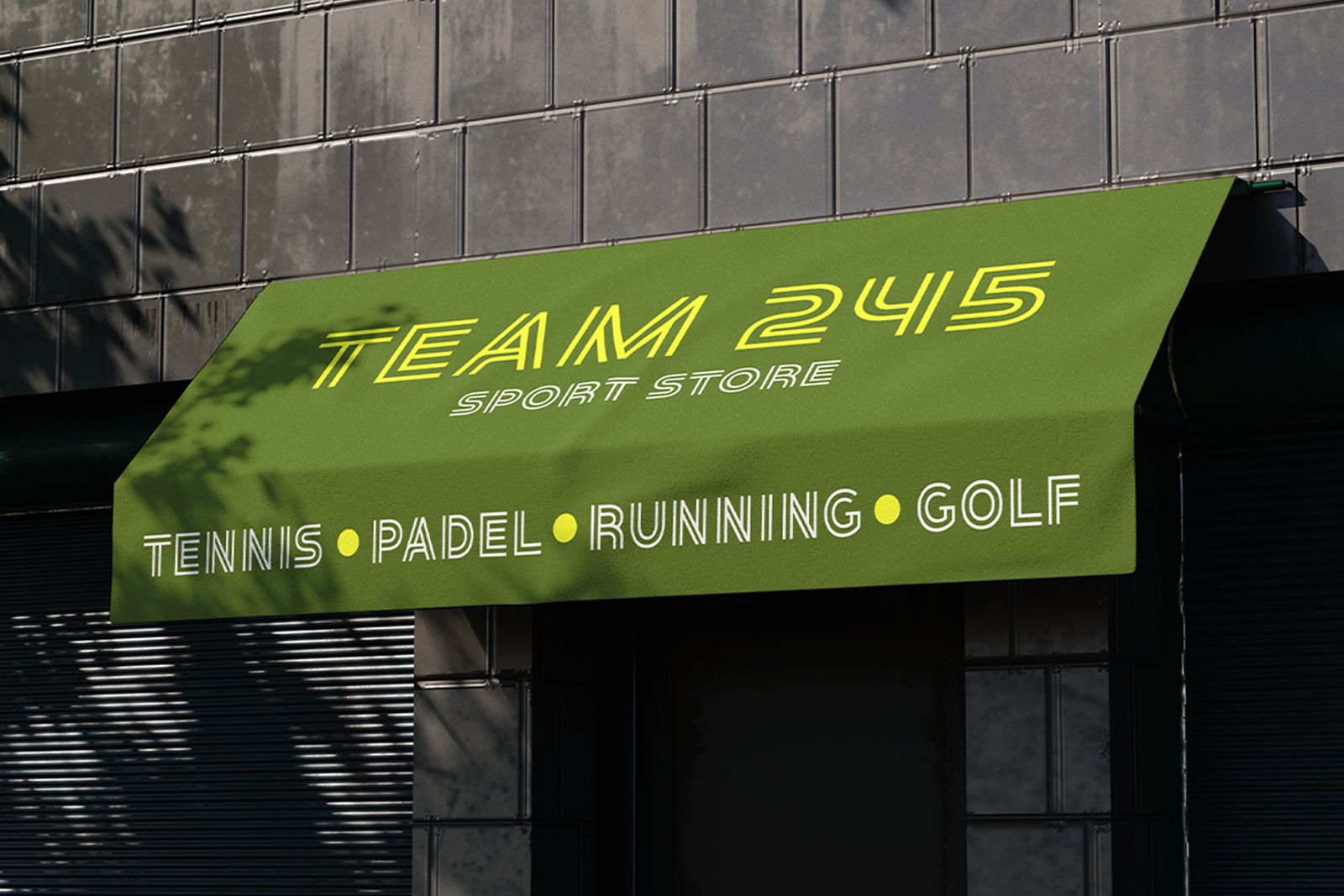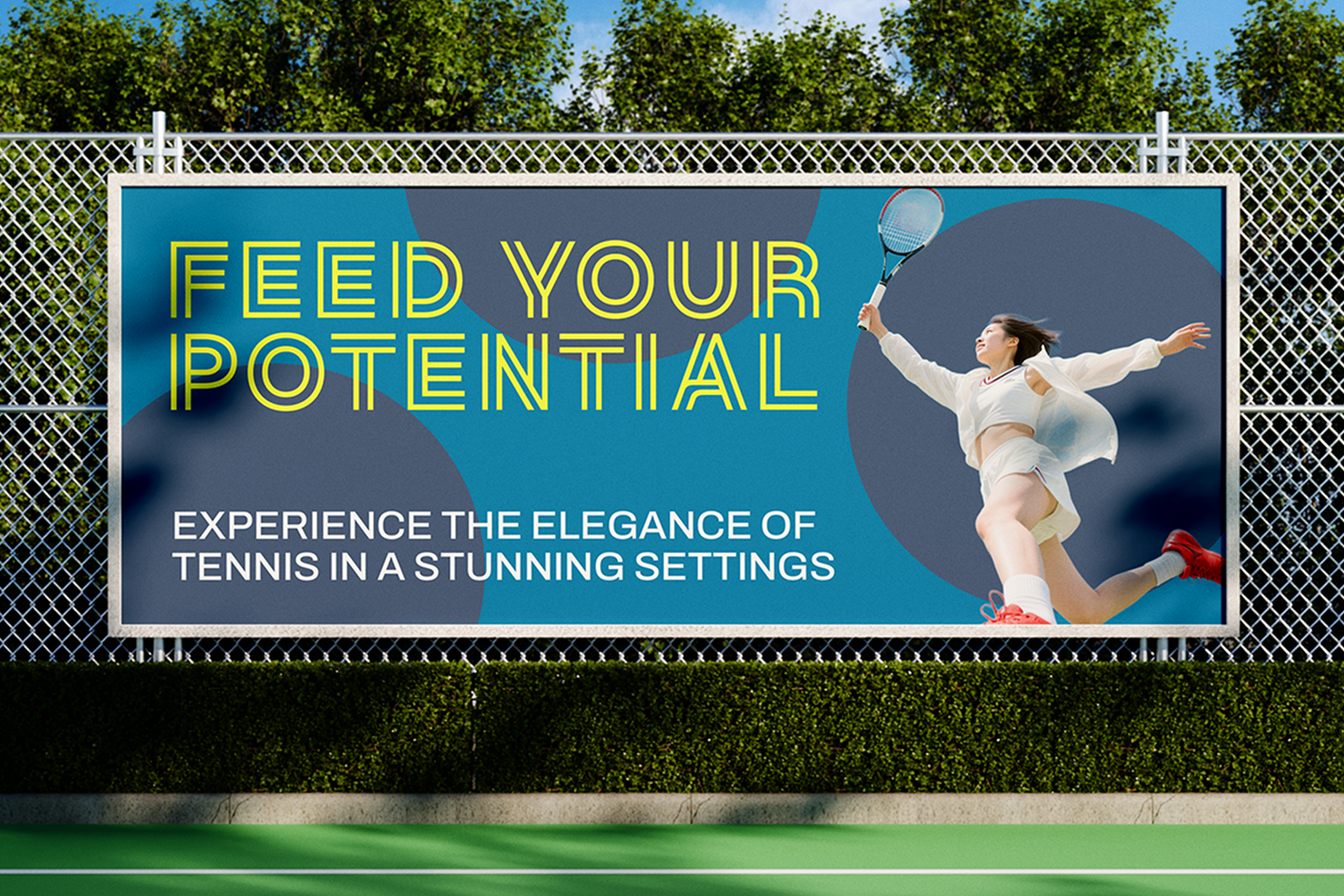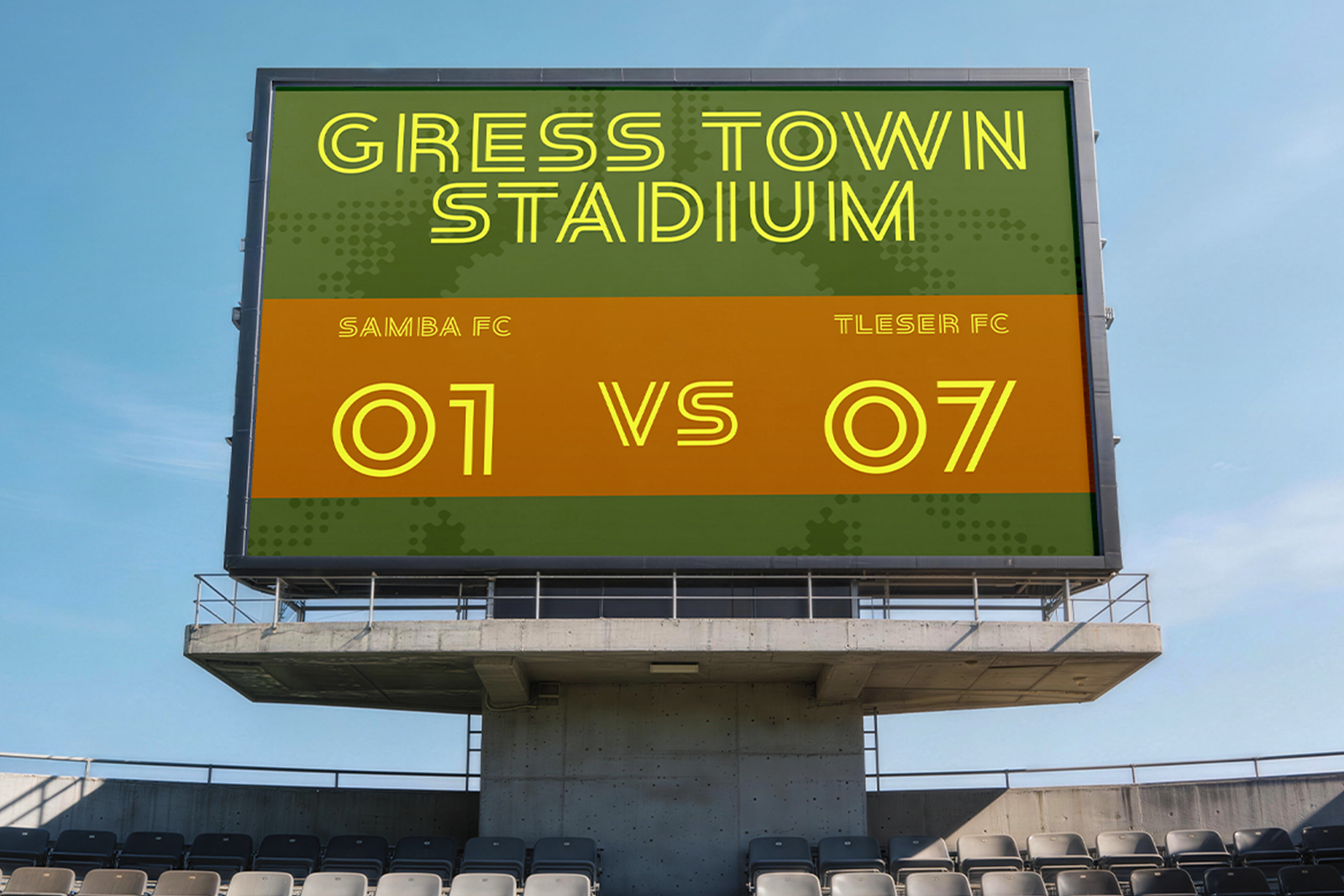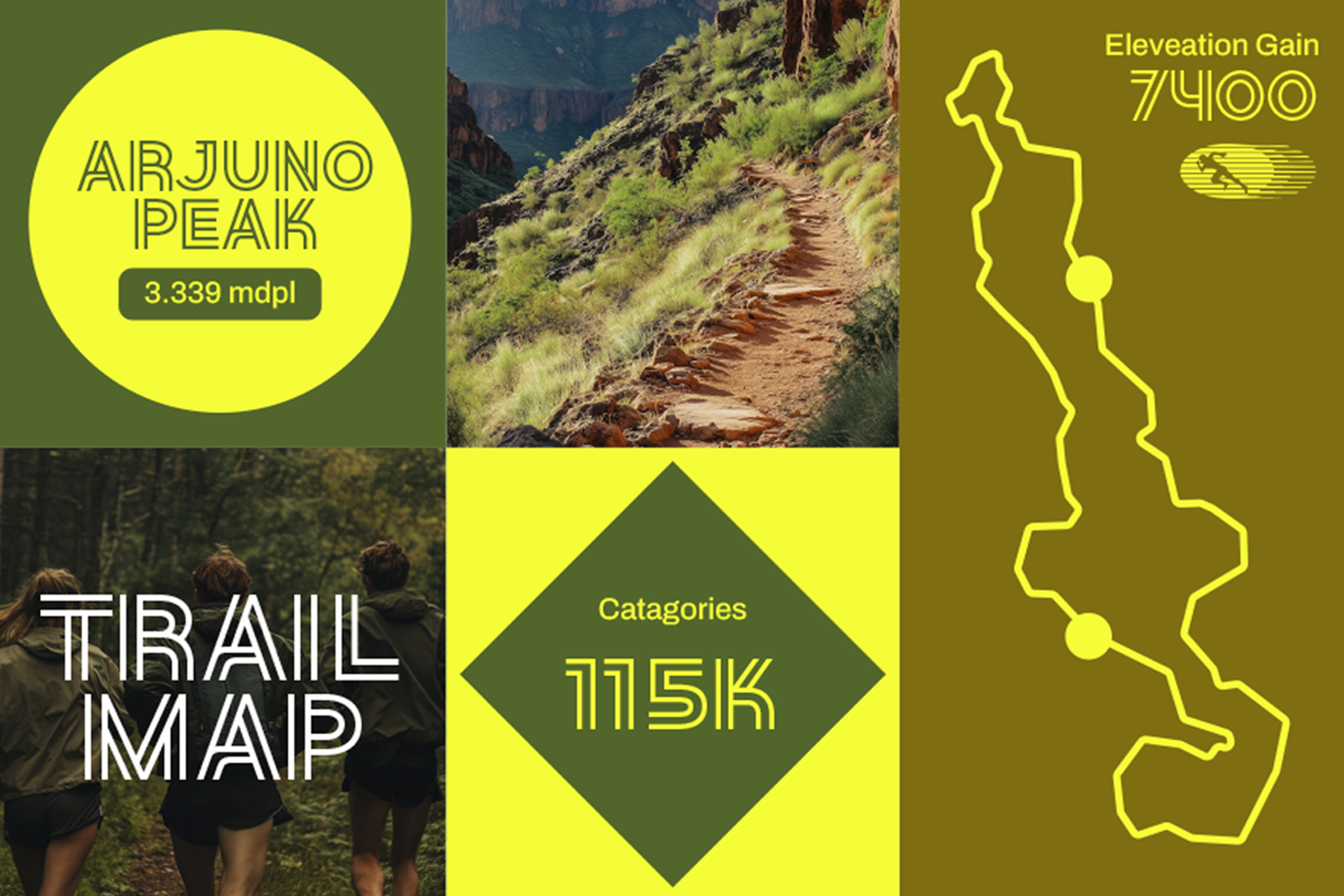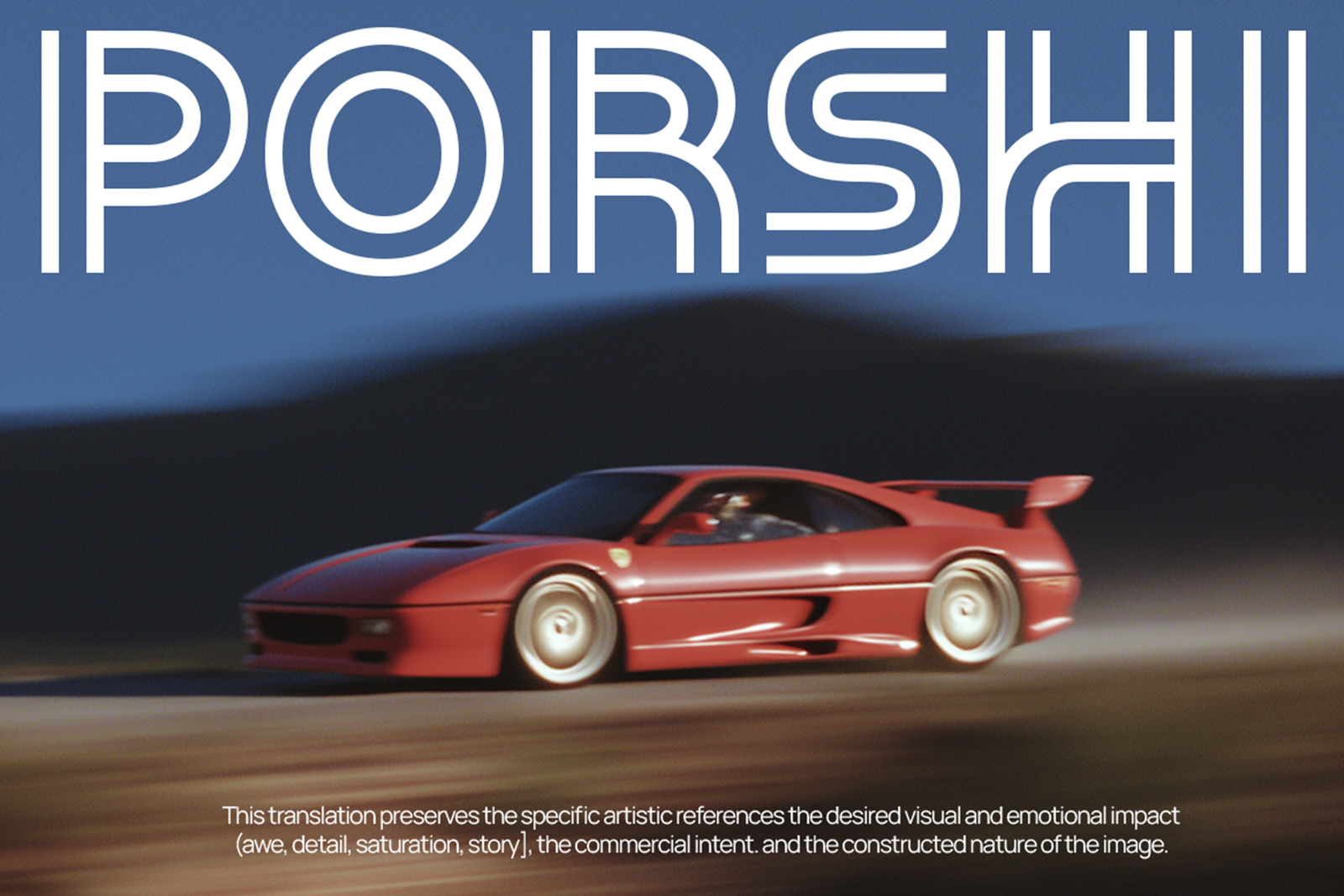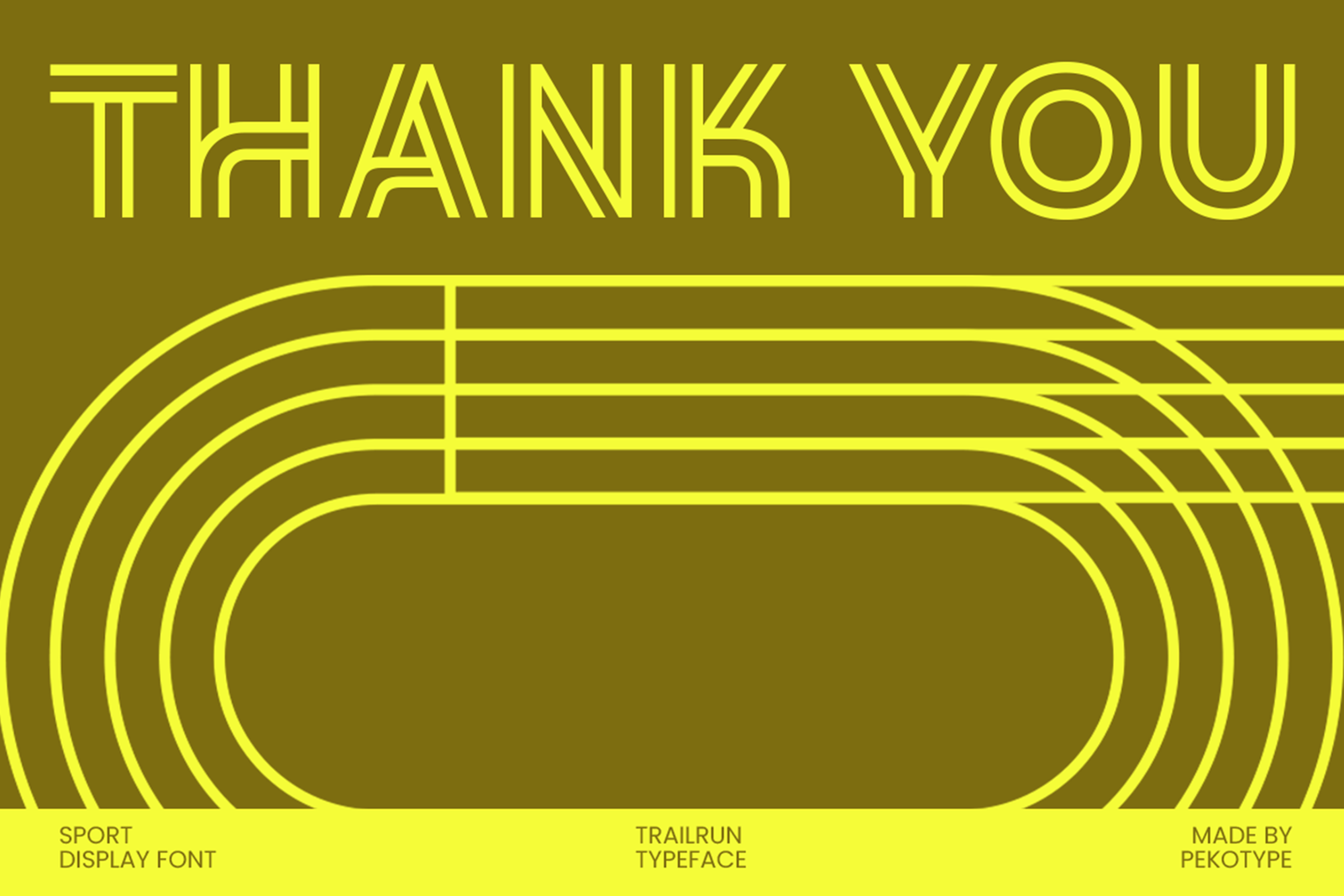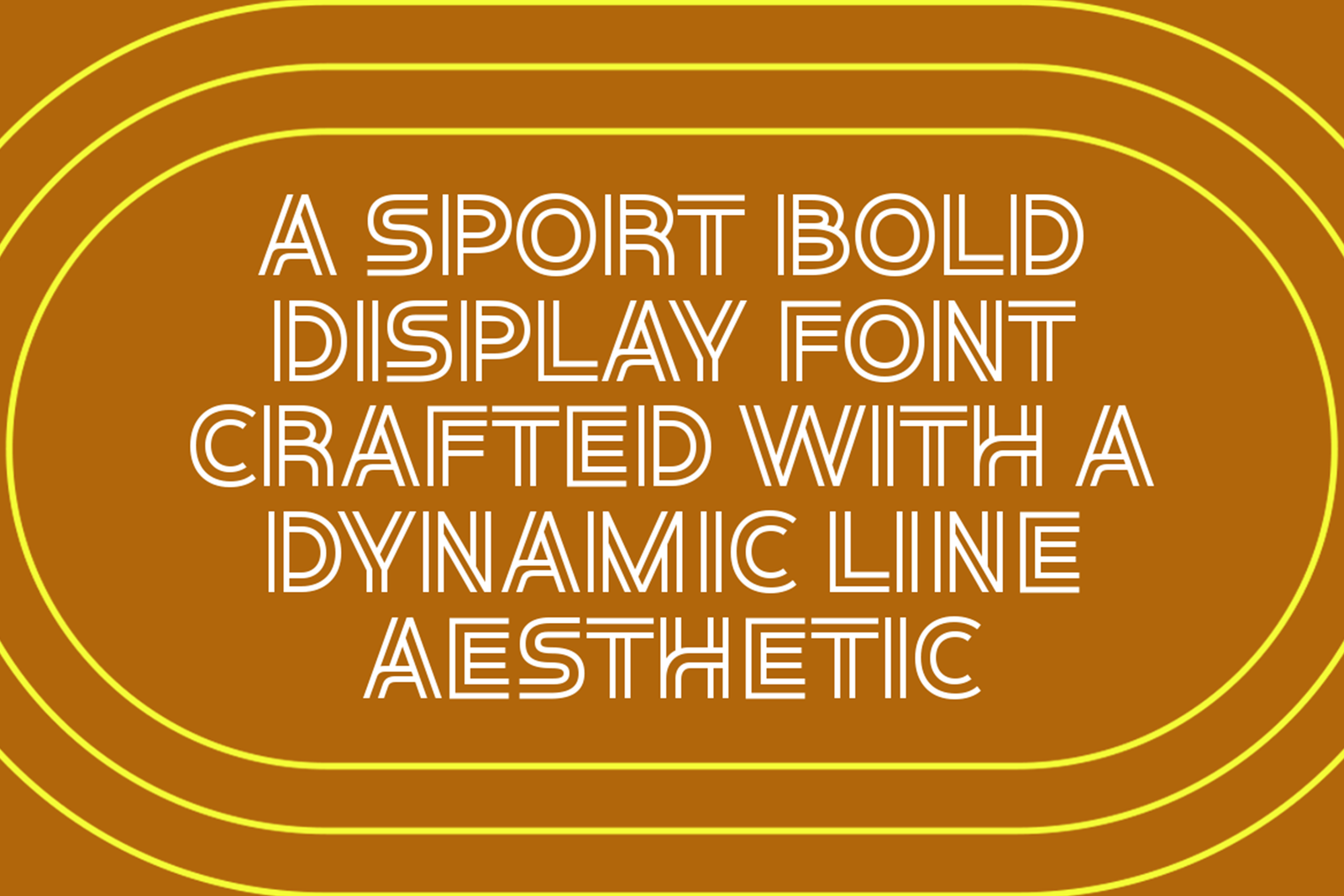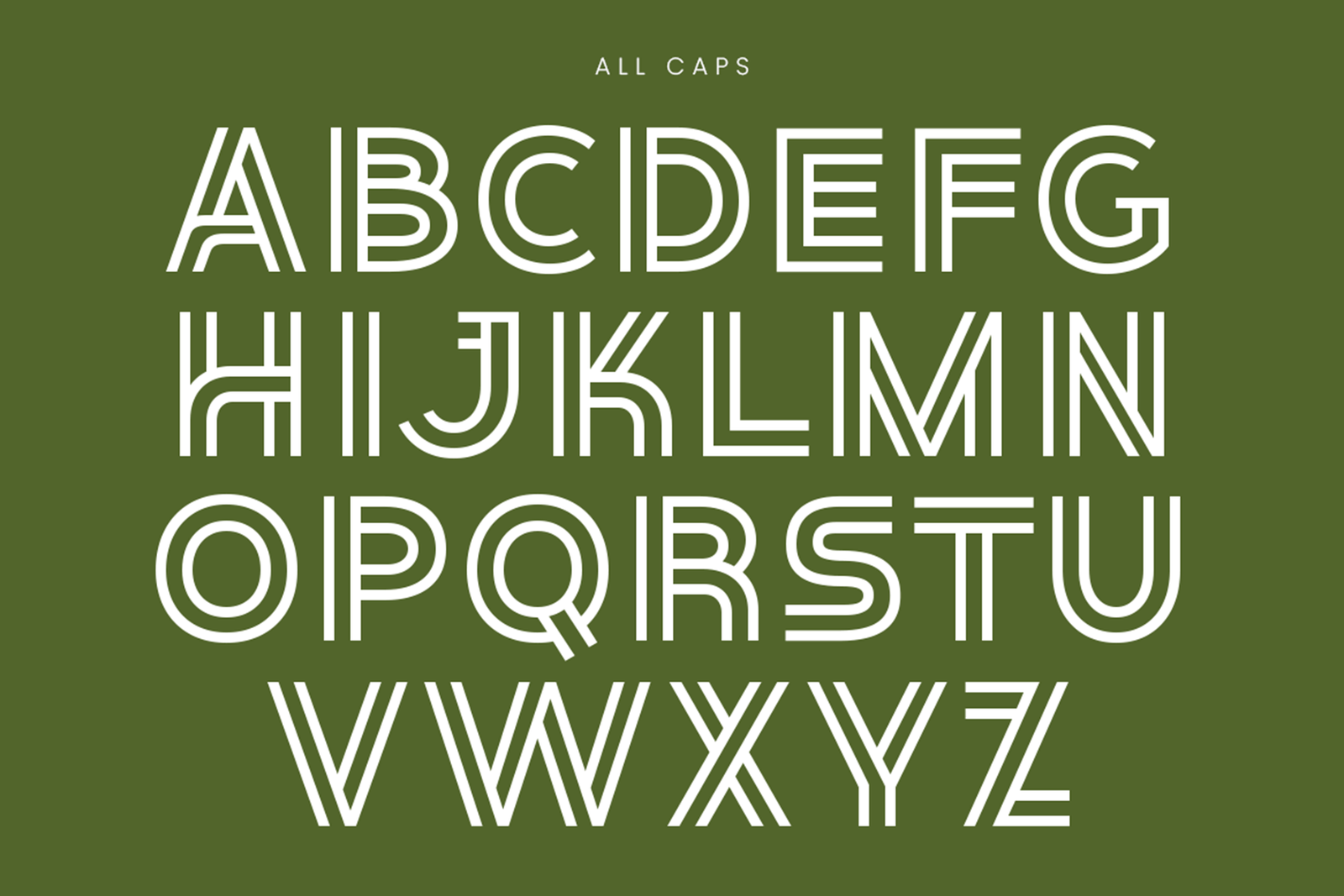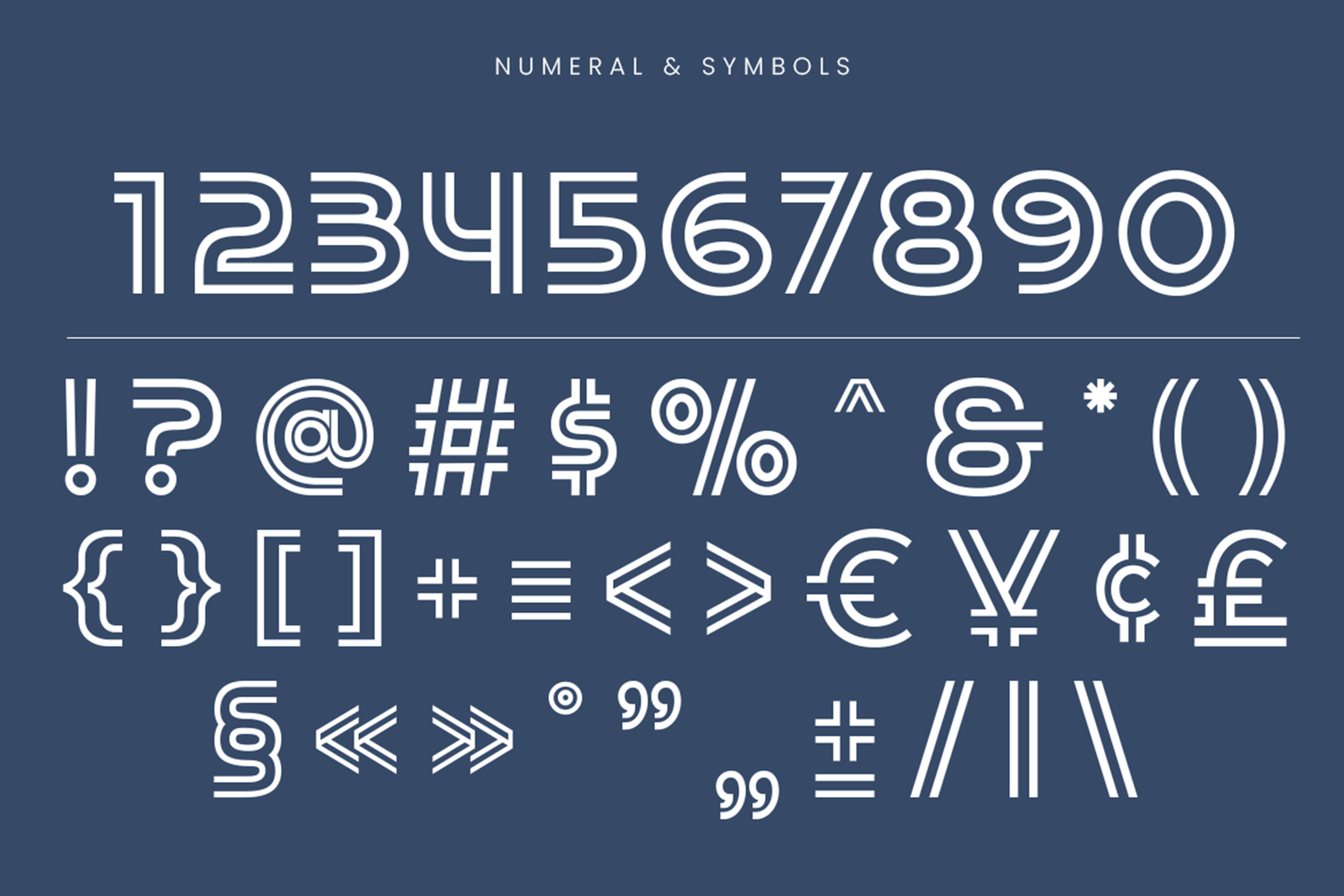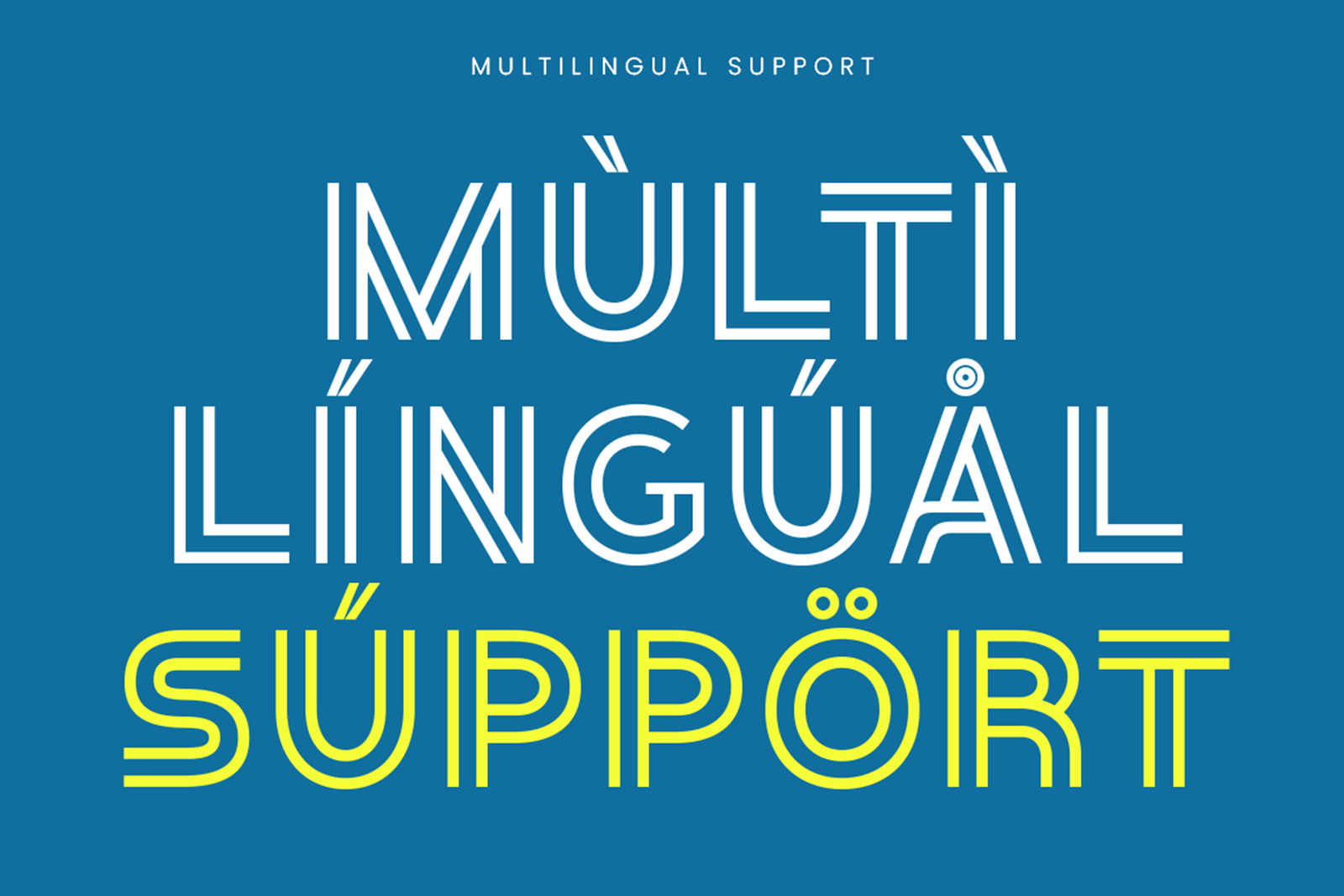
TRAILRUN Font is a sporty display typeface with a bold futuristic style, perfect for sports branding, logos, posters, apparel, and creative projects.
TRAILRUN Font – Sporty Futuristic Display
TRAILRUN Font is a sporty display font designed to bring a dynamic, energetic, and modern feel to your creative projects. Inspired by outdoor activities and athletic aesthetics, this font features unique geometric letterforms with a futuristic line style that creates a strong visual identity. Its bold character and distinctive appearance make TRAILRUN the perfect choice for designs that need an active, adventurous, and professional look.
This versatile font works perfectly for sports branding, fitness logos, event posters, outdoor campaigns, apparel designs, and modern advertising materials. It is also a great fit for racing graphics, gym promotions, product packaging, social media content, and lifestyle projects. Whether you are creating a sports team identity, competition artwork, merchandise, or an energetic brand visual, TRAILRUN helps your design stand out with a powerful and contemporary style. With uppercase letters, numbers, symbols, punctuation, and multilingual support, this font provides flexibility for various creative needs. Choose TRAILRUN to add a bold, sporty, and futuristic touch to your next design project.
Features:
• All Caps
• Number, Symbol, & Punctuation
• Multilingual